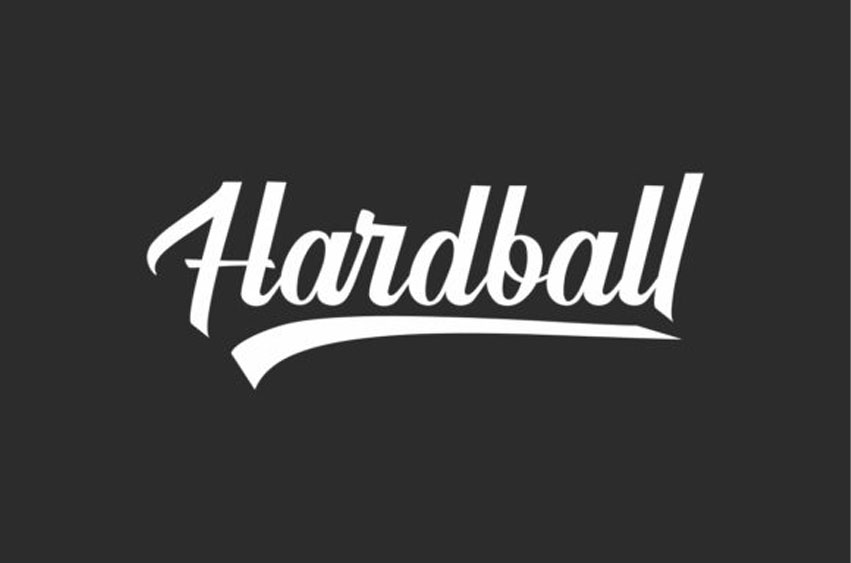
Hardball Font is a distinct and retro styled script font. This font is PUA encoded which means you can access all of the glyphs and swashes with ease.
Hardball is perfect for many projects including : branding design, fashion, headings, invitations, logos, products packaging, merchandise and more!